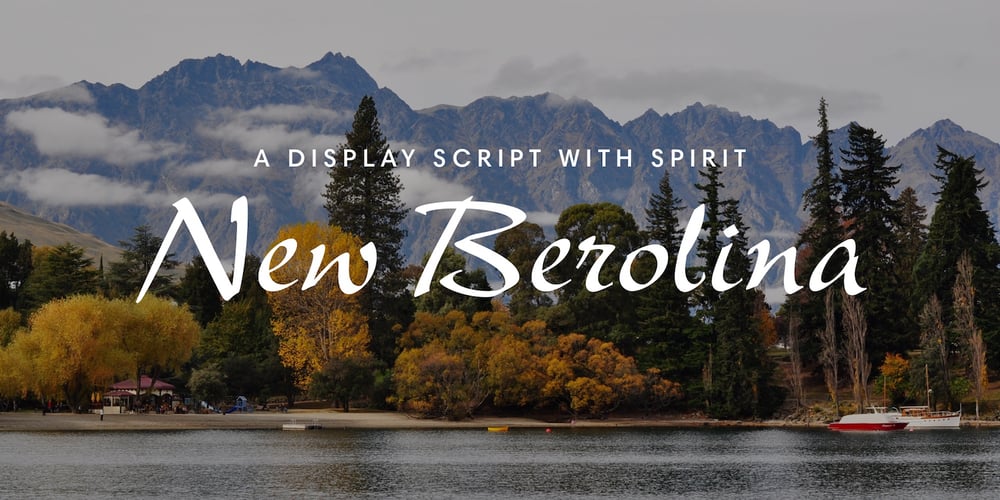
New Berolina MT Font Family was designed by Martin Wilke and published by Monotype. New Berolina MT contains 1 styles and family package options. Martin Wilke designed the dynamic calligraphic typeface New Berolina in 1965. The light line of the strokes and the strong stroke contrast lets New Berolina dance across the page. Broad, generous capitals complement beautifully the narrower lower case characters with their low x-height. The capitals can also be used as initials. Used carefully and with generous line spacing, New Berolina will lend any text a fresh, lively look.